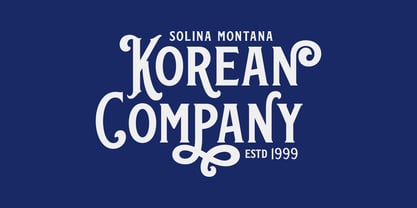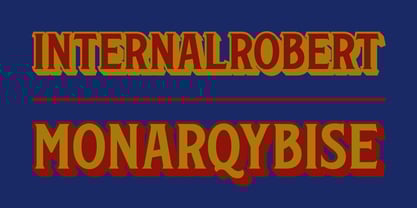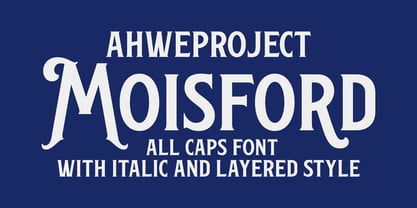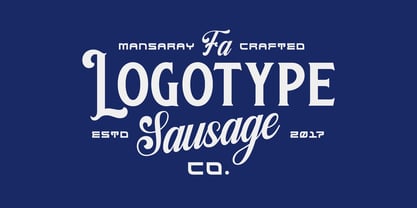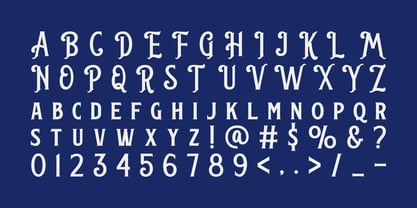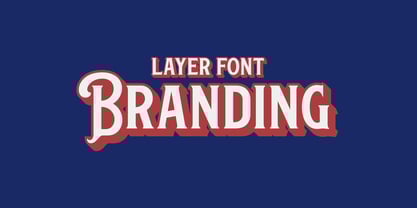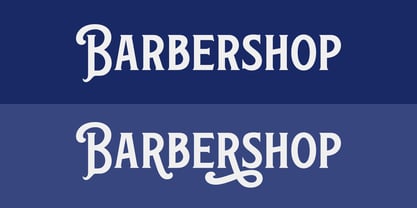
Moisford
von ahweproject
Die Schriftfamilie Moisford wurde von Dida Ahluddin entworfen und von ahweproject veröffentlicht. Moisford enthält 4 Stile und Familienpaketoptionen. Mehr über diese Familie
Immerse yourself in the refinement of the Moisford font. Each stroke of this exquisitely handcrafted font is mindfully designed to enhance both visual and emotional appeal in your creative projects. Be it branding, fashioning the perfect wedding invitation, crafting a vintage design, or designing a distinctive logotype, Moisford effortlessly infuses character and sophistication into your creations. With Moisford, no project is too big or too small to leave an impact with its timeless elegance.